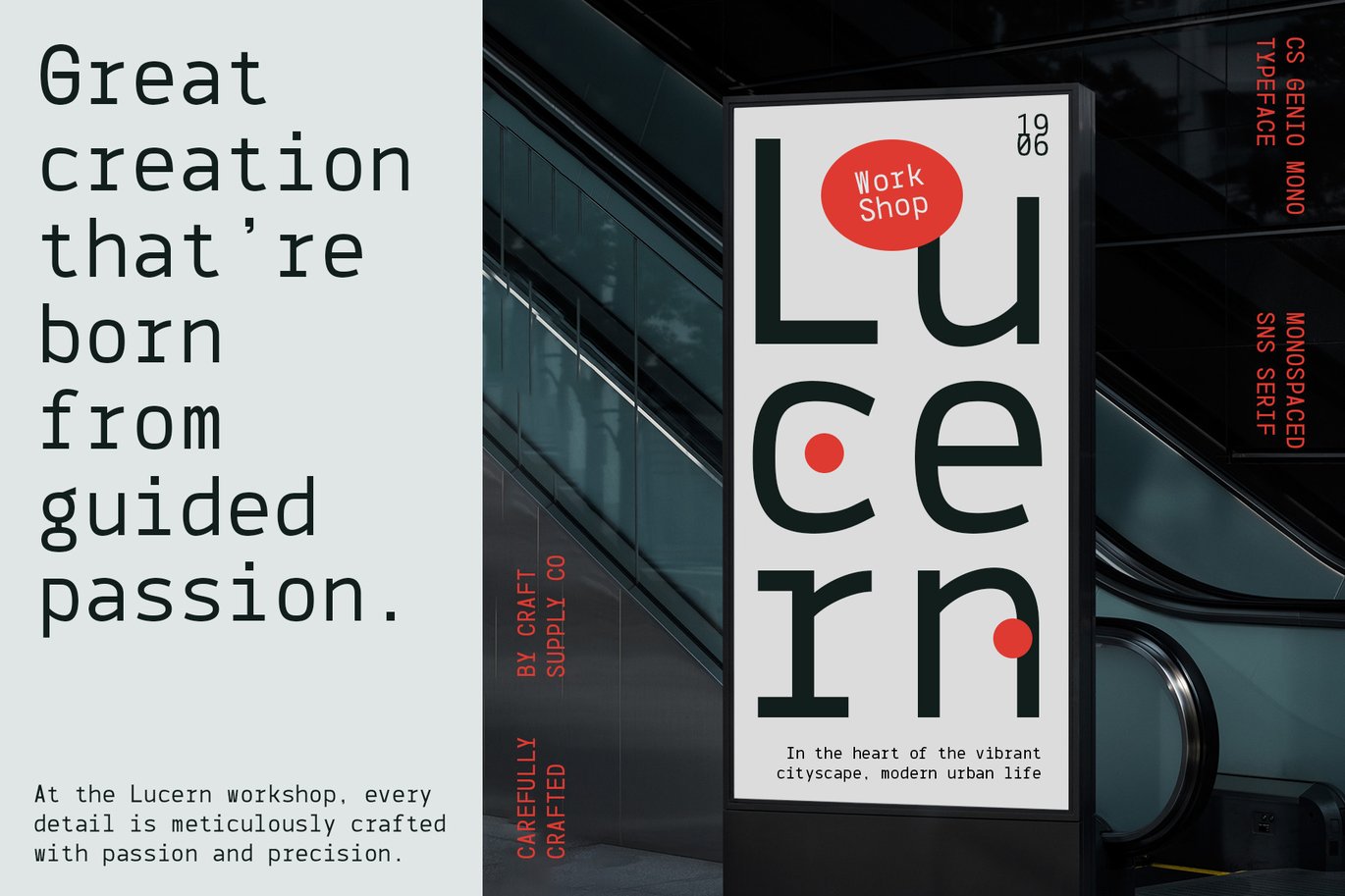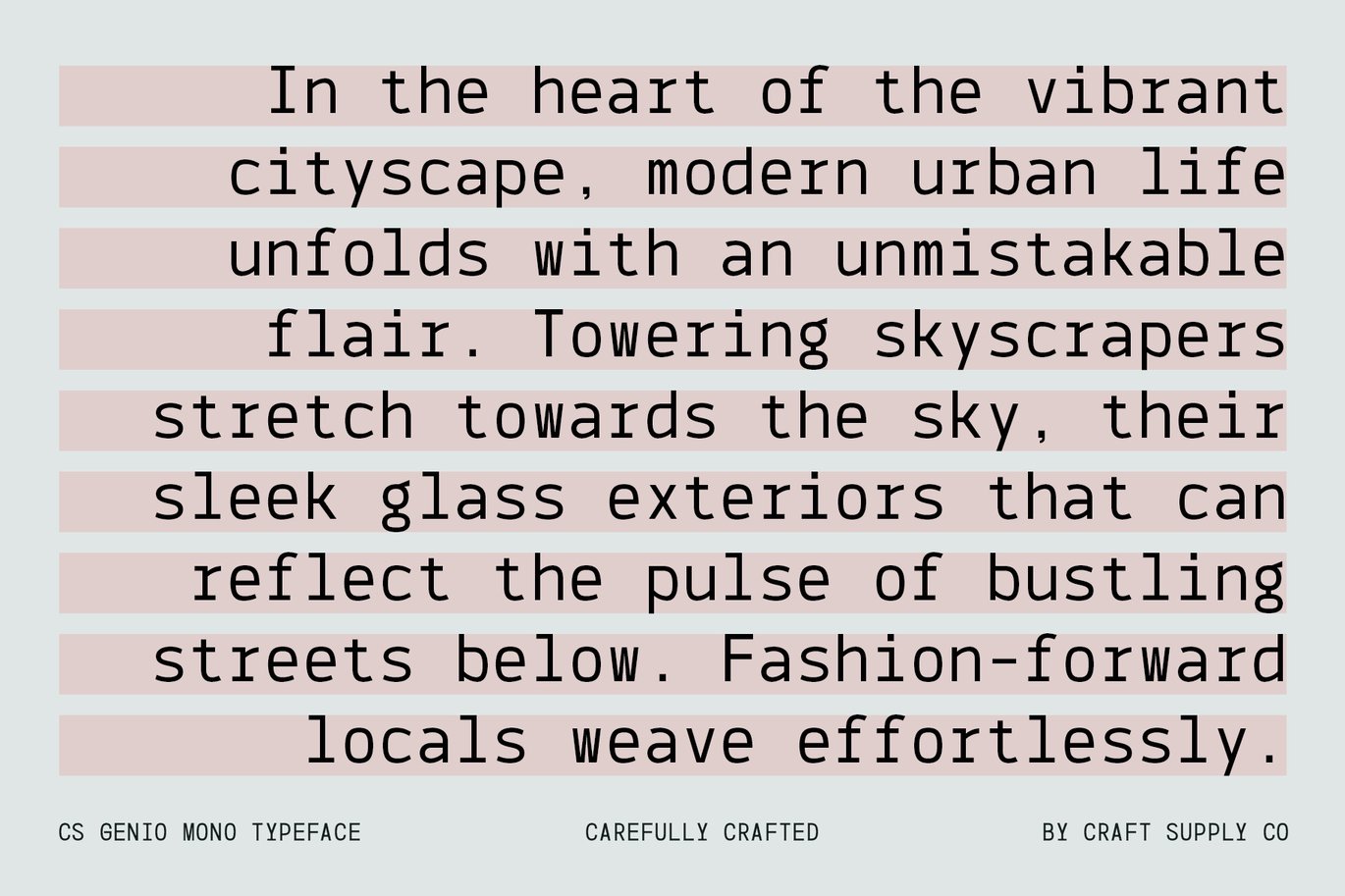
CS Genio Mono – Monospaced Typeface Font
CS Genio Mono – Monospaced Typeface Font is a versatile typeface ideal for various projects, including logos, branding, posters, blog headers, advertisements. The free version includes a full set of uppercase and lowercase letters, available in OTF format.